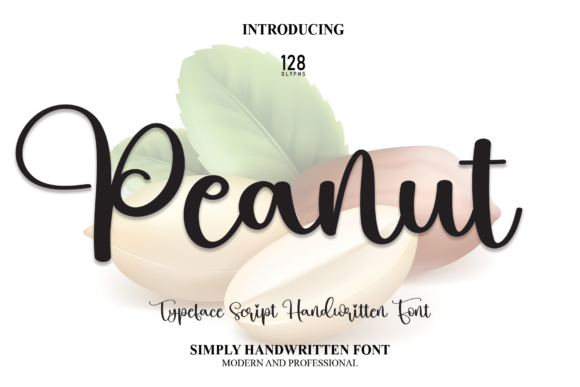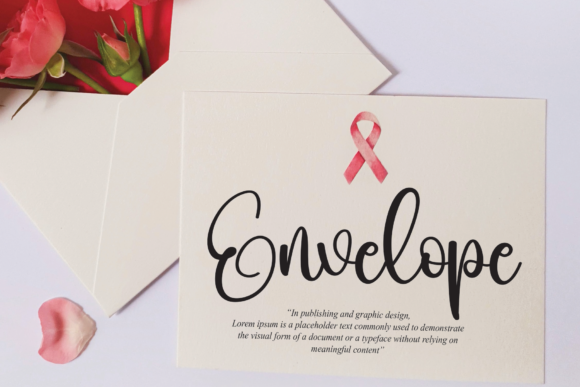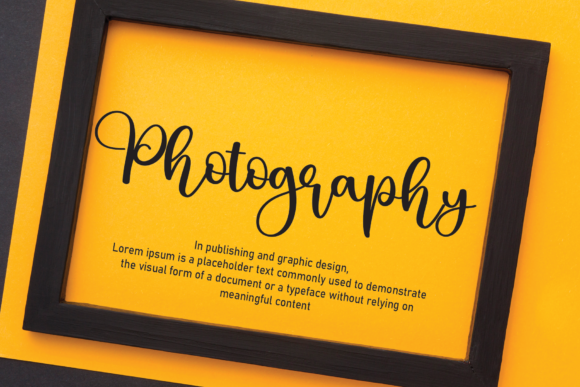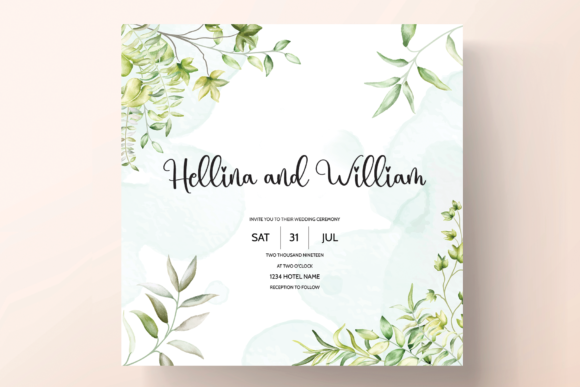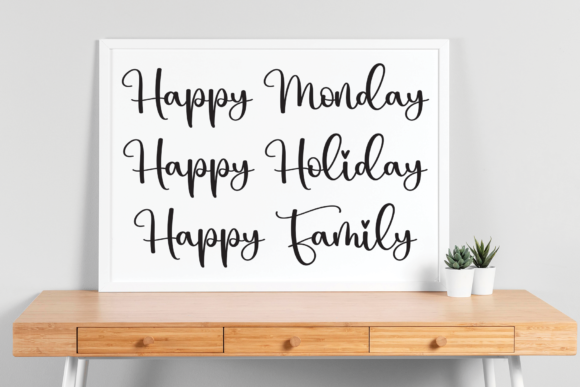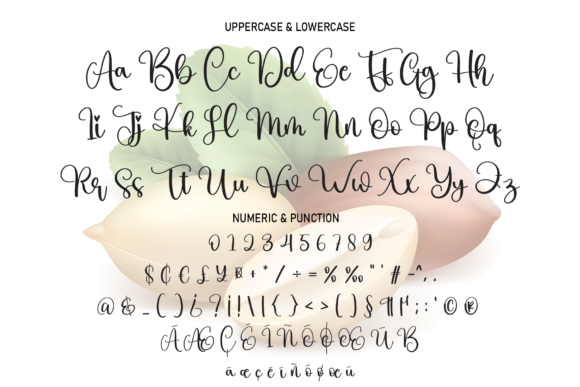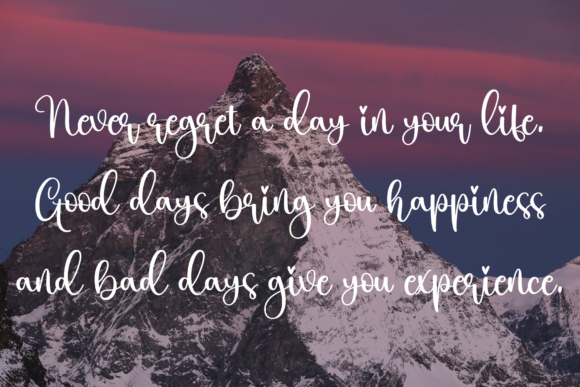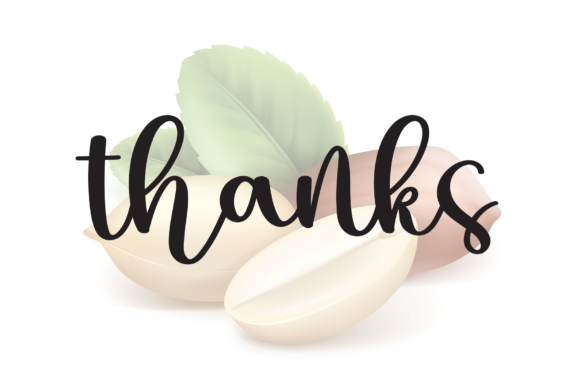
Peanut Font
About Peanut Font
This beautiful font is a versatile and elegant typeface, featuring letters that are perfectly suited for a myriad of design applications. Whether you’re working on wall displays, wedding invitations, social media post logos, advertisements, product packaging, product designs, labels, photography, watermarks, invitations, stationery, or any project that demands a handwritten touch, this font effortlessly adds a tasteful and personalized flair.
The font’s aesthetic excellence makes it a go-to choice for a wide range of creative projects. Its versatility shines through in its ability to enhance the visual appeal of diverse design elements. The carefully crafted letters are not just functional; they elevate the overall design, creating a handwritten taste that resonates with authenticity and charm.
Ideal for wall displays, the font brings a unique and personalized touch to visual presentations. For wedding invitations, it exudes elegance and sophistication, setting the tone for a memorable event. In social media post logos, the font adds a distinctive and recognizable branding element. When used in advertisements, it captures attention with its handwritten allure.
For product packaging and designs, the font imparts a sense of craftsmanship and uniqueness, making the product stand out on the shelf. In labels and watermarks, it ensures a professional yet personalized touch. Invitations and stationery benefit from the font’s ability to convey a sense of warmth and individuality.
In essence, this beautiful font is a versatile tool that elevates various design projects, providing a handwritten taste that adds character and distinction. Its adaptability makes it an excellent choice for creatives across different industries, ensuring that the final result is not only visually appealing but also authentically crafted. Incorporate this font into your designs to bring a touch of elegance and handwritten charm to your projects, making them truly stand out.